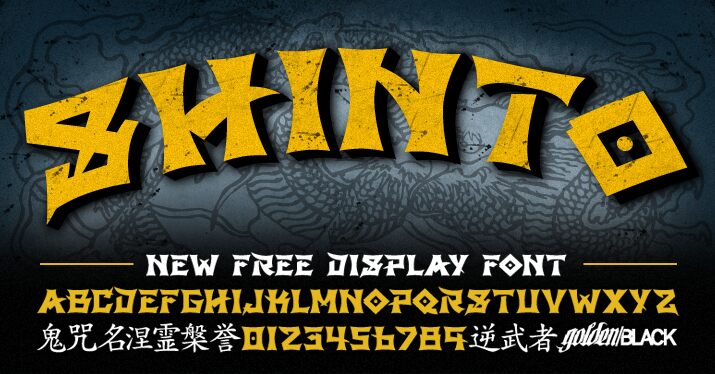
GB Shinto from The Golden Black is a free Japanese-inspired display font with broad, sharply cut lettering. Its dense silhouettes mix sweeping curves with pointed notches and abrupt angled joins. Small angular openings break up the dark mass.
Japanese folklore, martial arts, and arcade imagery are natural subjects for its dramatic forms. It suits game title cards and event posters because the lettering reads almost like a row of carved emblems. The same angular pattern can give snack packaging and music merchandise a stylized Japanese theme.
Shinto is a free display font by Golden Black.
GB Shinto
GB Shinto Regular is a font by The Golden Black, designed by The Golden Black in 2013.